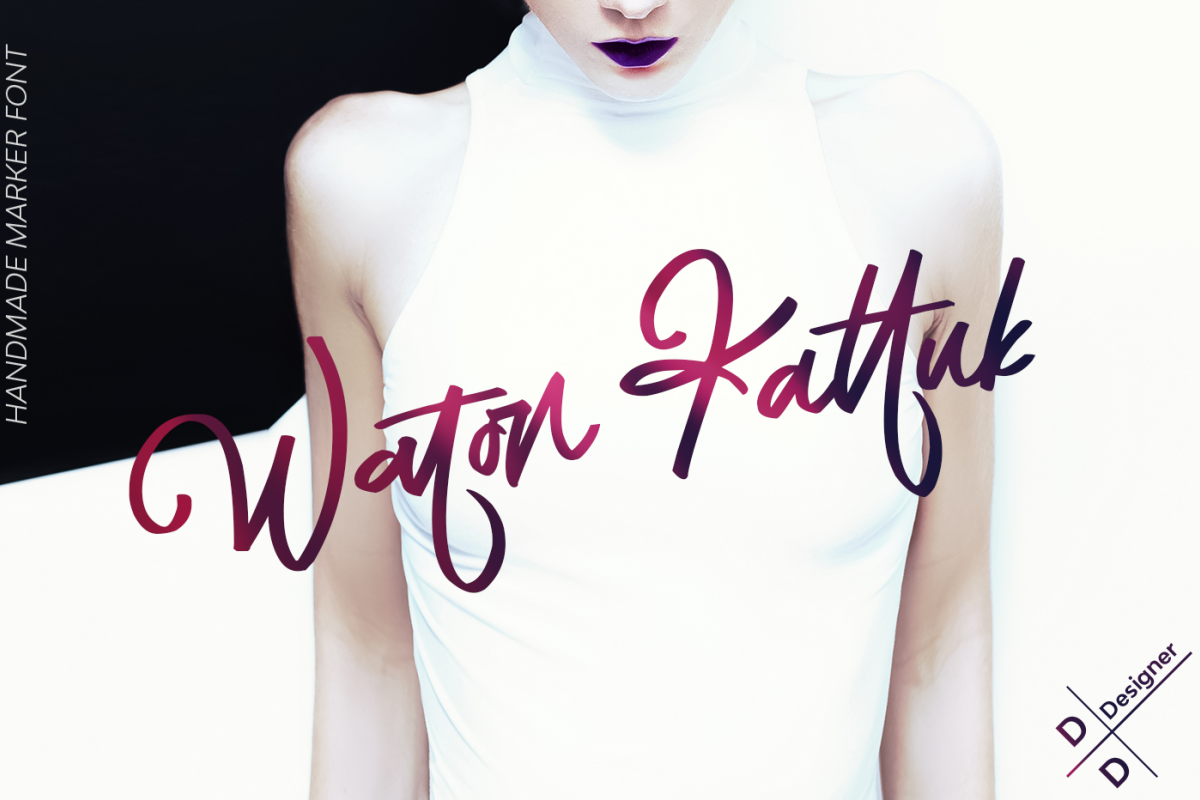
Waton Kattuk Script Font
Thank you for looking :)Let me introduce you the font Waton Kattuk . It flows like a signature while you type it. It really shows the art of hand-work. It is very legible even though its nature looks like it has extreme lines. It is really unique in this regard. Awesome! Isn't it? :)
GREAT FOR
• Characteristic company logos
• Blog pages
• Logo of brands
• Projects you need to utilize a premium font
• The projects that require a font including lots of alternates.
• Numbers and Symbols
• Alternate Characters